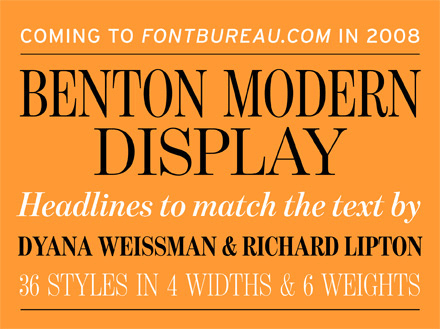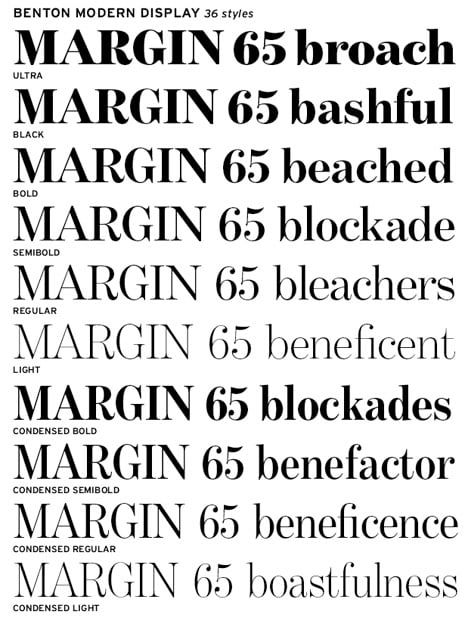
Font Fetish: Anticipation (aka Benton Modern Display)
A spirited addition to the straightforward Benton Modern family name.
I read in the Font Bureau blog that Benton Modern Display will be out in a week or two. Dyana Weissman and Richard Lipton are responsible for this delicious display font, which manages to be both vintage and fresh. I can't wait to get my hands on it!
Here are a few sneak peeks:
What does Benton Modern Display remind you of? A titling font from one of Doris Day's less goofy films? A magazine face from the early 1960s? I want to know!